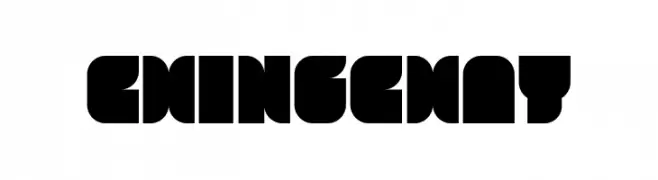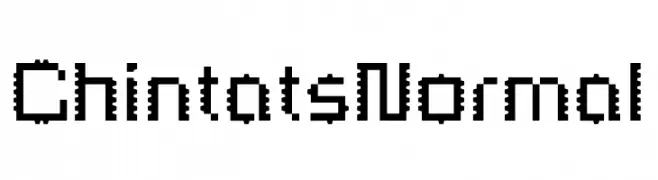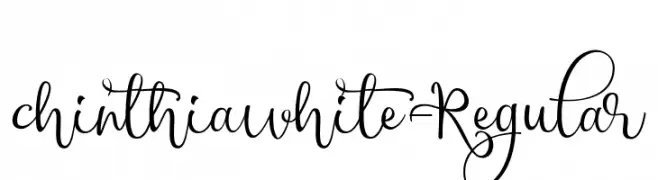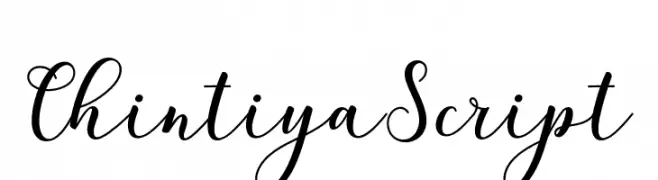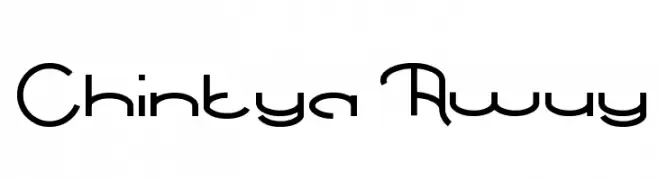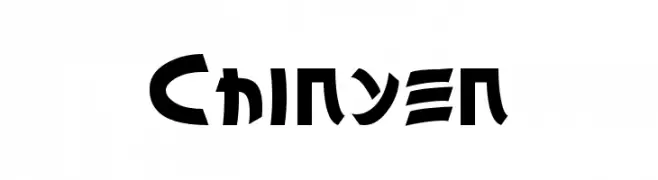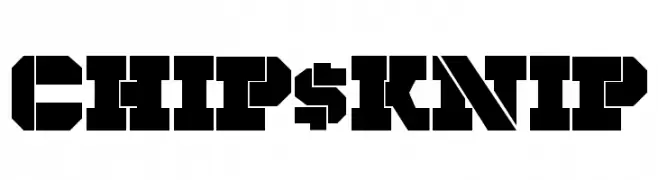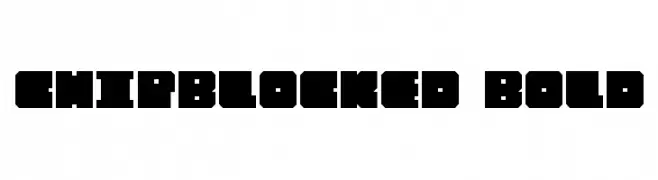
A bold, geometric font with rounded edges and a blocky design.
A pixelated, retro-style font with a digital, tech-inspired design.
An elegant script font with intricate loops and swashes, perfect for sophisticated designs.
An elegant, flowing script font with a sophisticated and artistic flair.
A decorative and artistic font with modern, flowing elements.
A bold and dynamic font with sharp angles and smooth curves.
A bold, geometric font with a futuristic, industrial style.
A playful, chunky font with a hand-drawn, whimsical style.